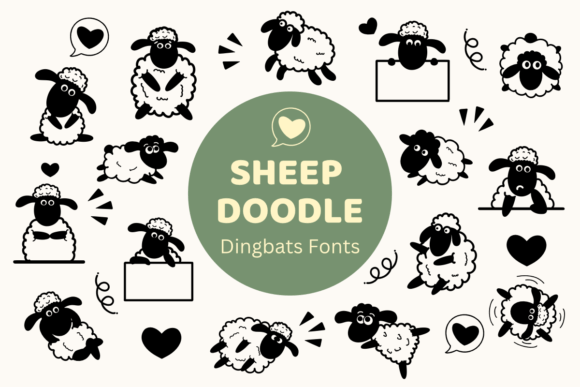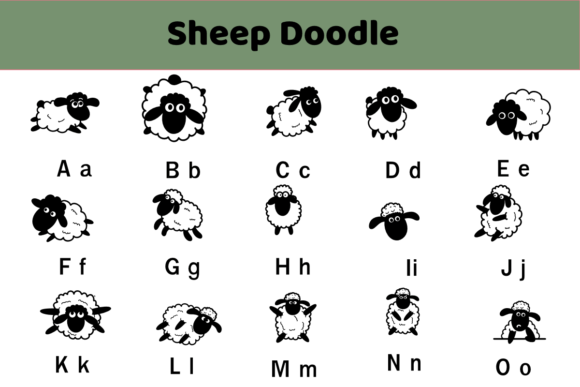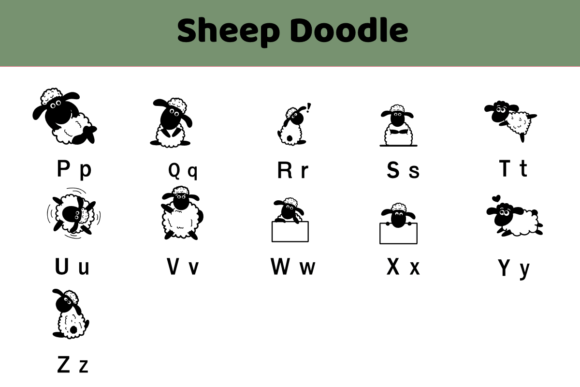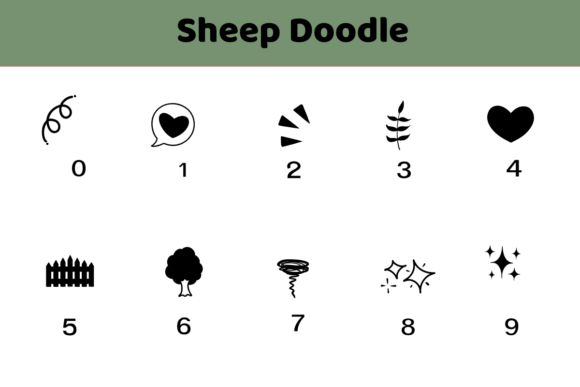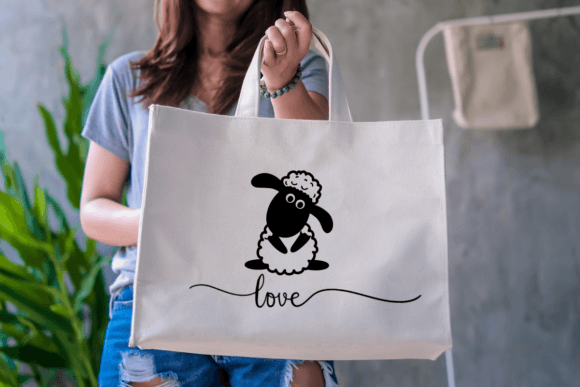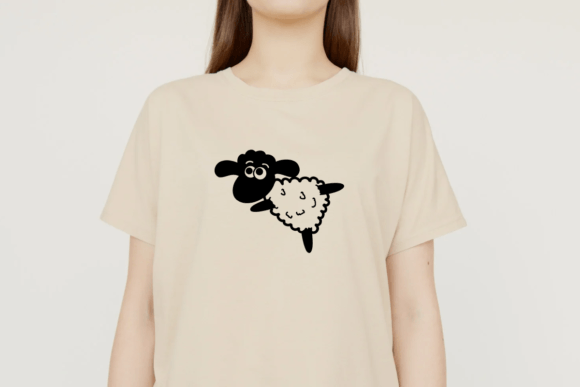
Sheep Doodle Font
Sheep Doodle is a playful dingbat font featuring adorable sheep illustrations. Each character in the font showcases a unique, cute sheep design, perfect for adding a whimsical touch to your projects.